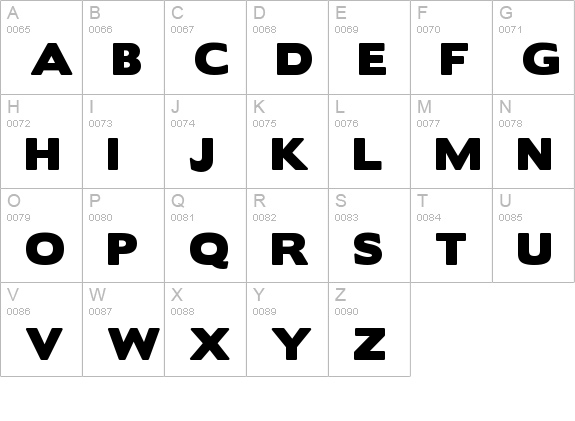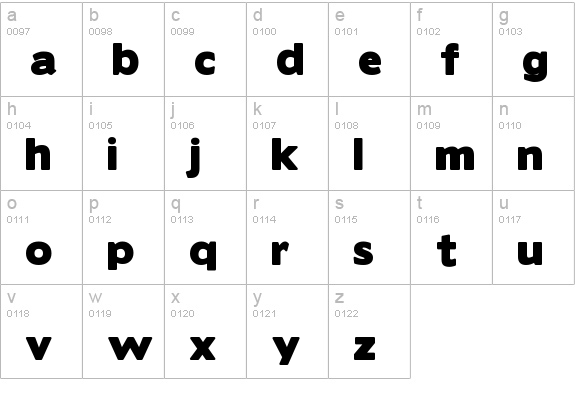
BorisBlackBloxx Font Details
Introducing BorisBlackBloxx font, a striking and bold typeface that exudes modernity and sophistication. With its sleek and geometric design, this font is perfect for making a bold statement in various design projects. The sharp edges and clean lines of BorisBlackBloxx give a futuristic and edgy vibe, making it ideal for branding, headlines, posters, and more. What sets BorisBlackBloxx apart is that it is not only visually captivating but also versatile and easy to read. Its strong presence on the page commands attention and leaves a lasting impression on viewers. And the best part? BorisBlackBloxx font is available for free download at FontsMarket.com. Now you can effortlessly incorporate this unique and eye-catching font into your design arsenal without breaking the bank. Don't miss out on the opportunity to elevate your projects with the bold and dynamic BorisBlackBloxx font.